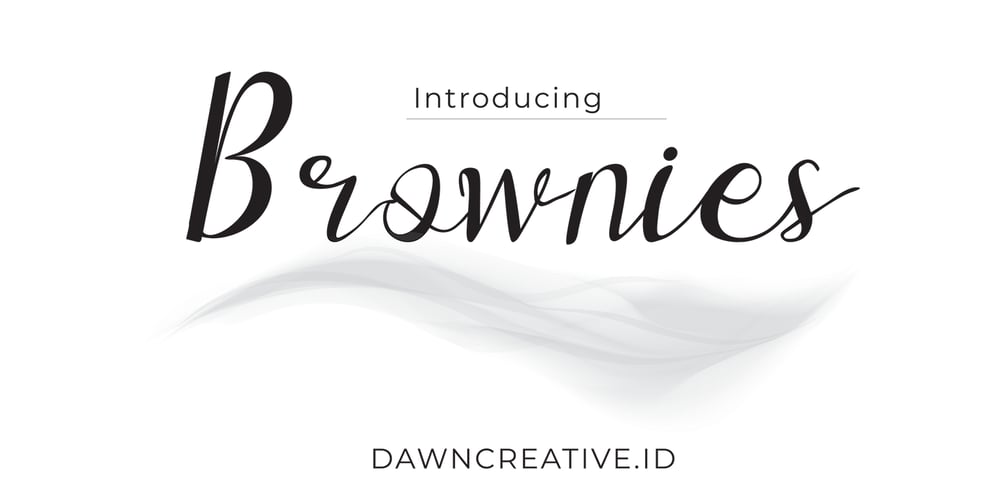
Brownies Font Family was designed by Fajar Rachmadi Priyambada and published by DawnCreative.Id. Brownies contains 1 styles and family package options. Brownies script will be a good thing for your design and matches well for uses ranging from wedding invitation, bakeries, and much more.